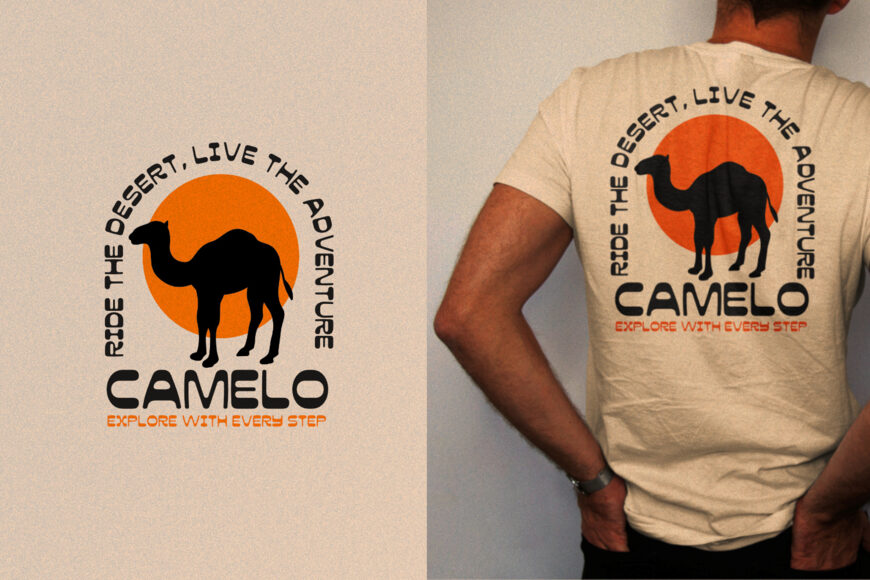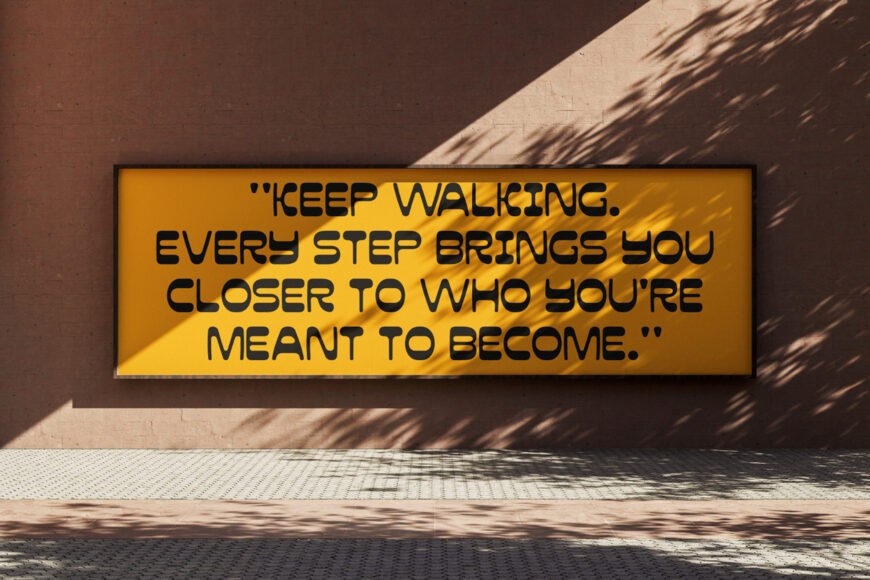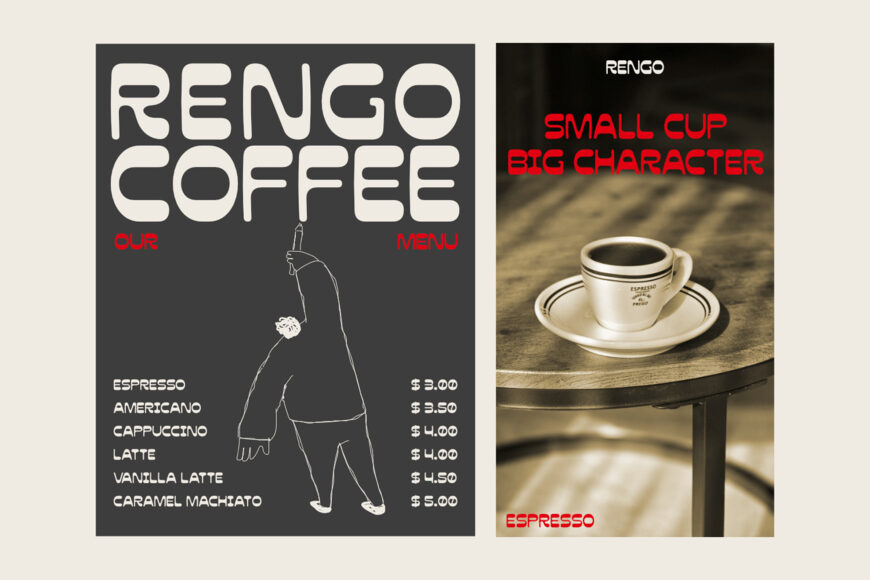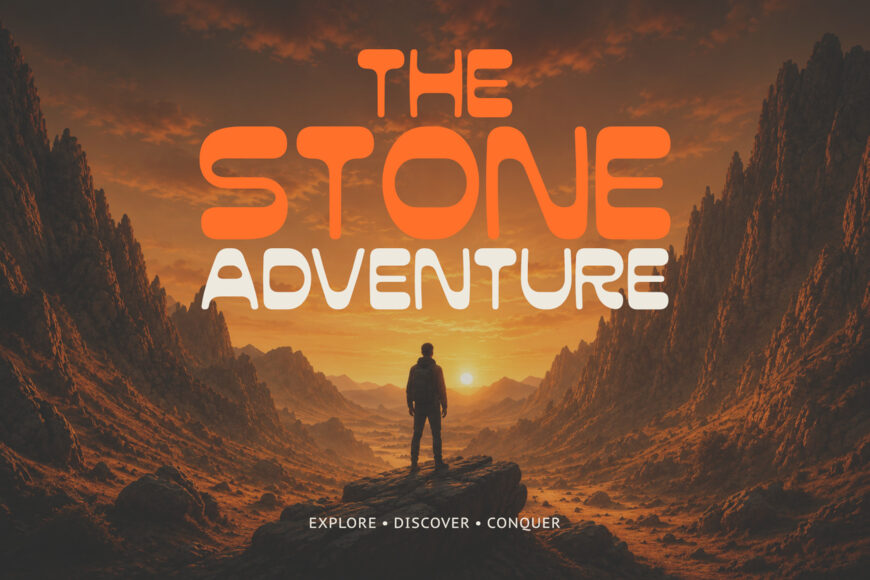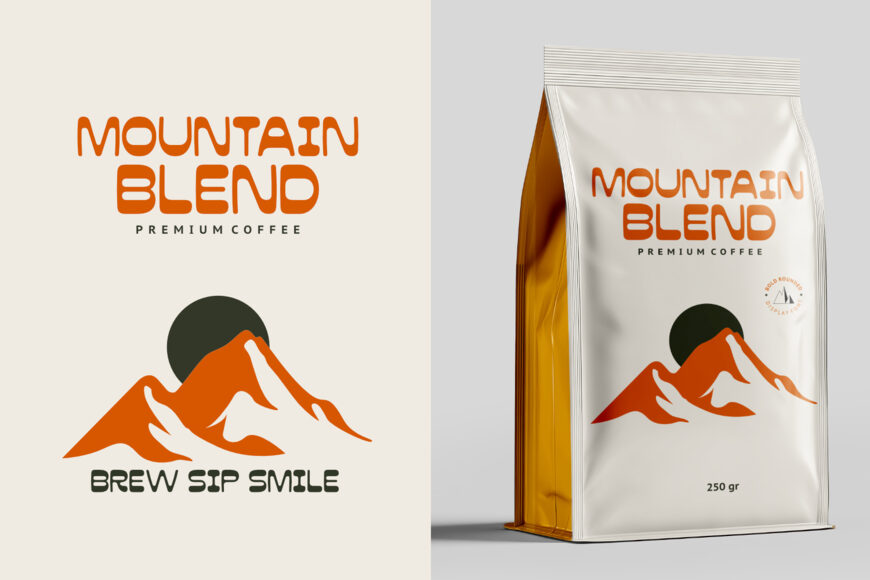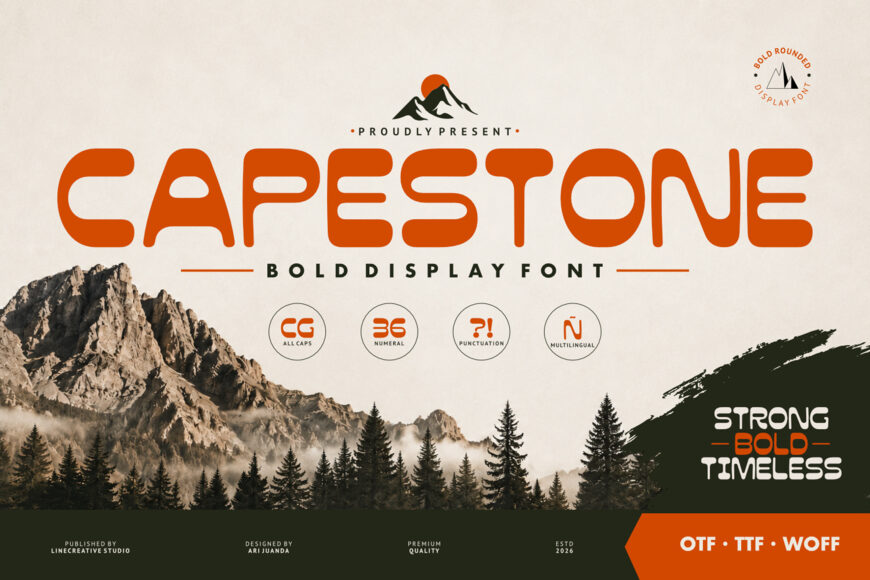
Capestone Font
Capestone is a bold display font inspired by the strength of mountains, outdoor adventures, and timeless branding. Designed with smooth rounded corners and confident geometric shapes, Capestone delivers a modern yet friendly appearance that instantly grabs attention.
Whether you’re creating outdoor brands, coffee packaging, travel posters, apparel, logos, or social media graphics, Capestone gives your designs a strong and memorable identity.